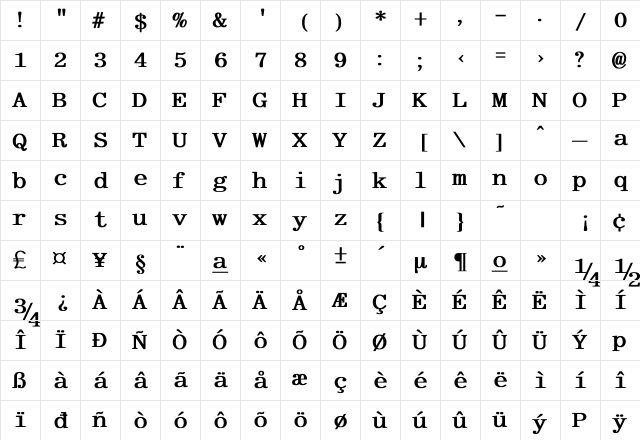
Asphalt Fixed Bold Free Font
Asphalt Fixed Bold
Asphalt Fixed Family
Design Context for Asphalt Fixed
Asphalt Fixed is a composed and adaptable typeface that performs quietly and consistently across a wide range of design contexts. Its bold stroke weight gives it real presence on the page.